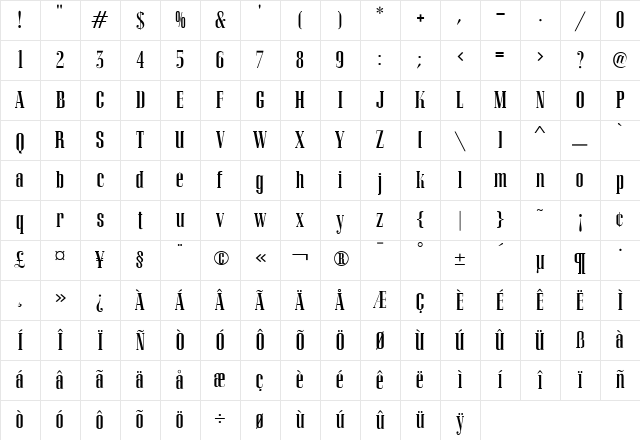
APCorvinusSkyline Regular
Foundry: Ann Pomeroy, February
Design Context for APCorvinusSkyline
APCorvinusSkyline is a composed and adaptable typeface that performs quietly and consistently across a wide range of design contexts.